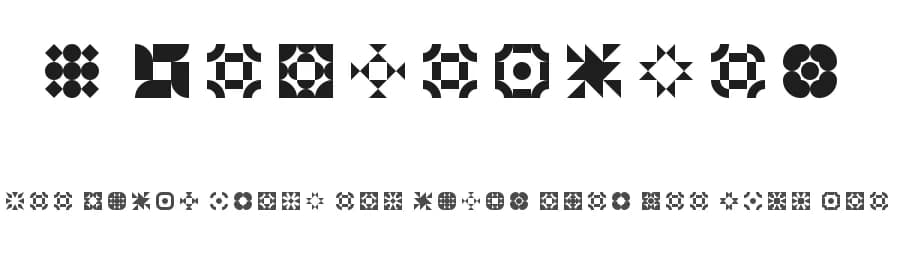
About 5 Geomedings Font
5 Geomedings is a dingbat font designed by Winter Design Studio. It includes 153 glyphs, a regular weight, TTF (TrueType) format, and 107 languages. 5 Geomedings is free to download; check the license details on this page before commercial use. Dingbat fonts like 5 Geomedings work best for icons, ornaments, bullet points, and decorative accents.
5 Geomedings Font is a versatile dingbats font that works for both headings and body text. Pair it with a contrasting sans-serif or serif font to add visual interest and a clear distinction between titles and body copy.